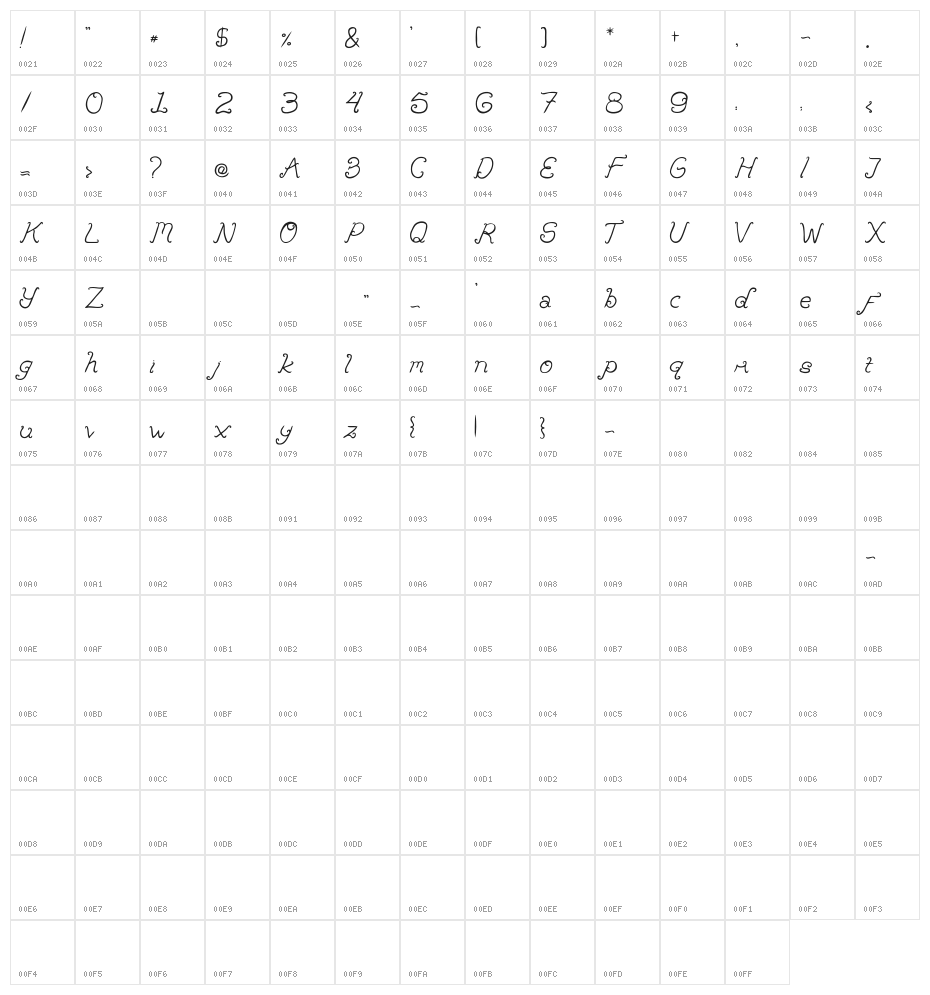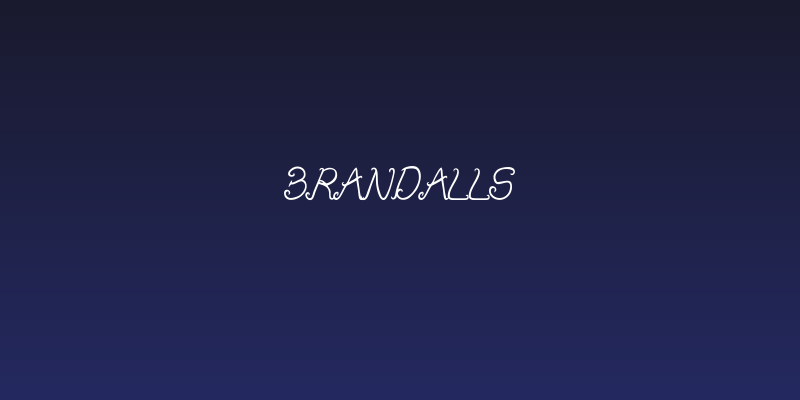
Brandalls Font
Brandalls Description
This font features a playful and whimsical script style with a hand-drawn appearance. The characters are connected with smooth, flowing lines that give it a sense of movement and energy. The uppercase letters are slightly larger and more elaborate, while the lowercase letters maintain a consistent flow. Numbers and special characters are designed to match the overall style, with distinctive loops and curves. The font's unique character is evident in its decorative elements, making it suitable for creative and artistic projects. Its legibility is maintained despite the decorative nature, ensuring it can be used effectively in various contexts.
| Proposed Projects | Ideal for invitations, greeting cards, branding, and artistic projects requiring a whimsical touch. |